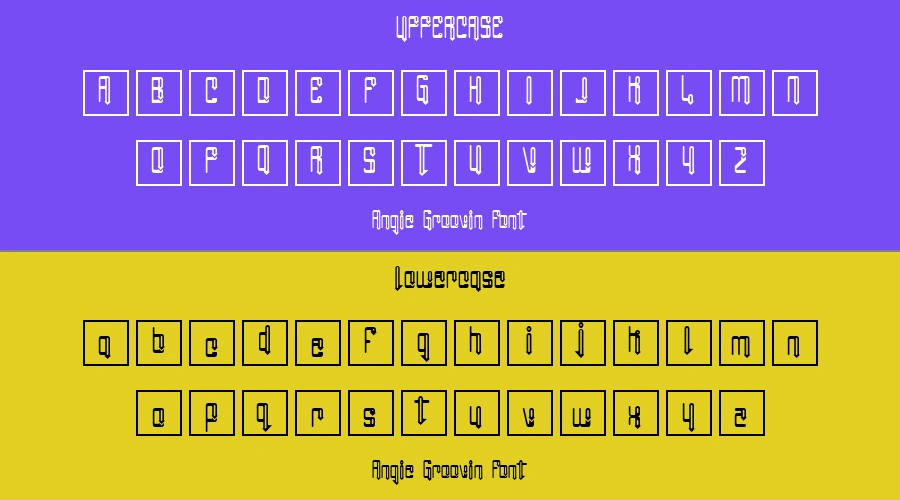
About Angie Groovin Font
Angie Groovin Font embodies typographic excellence through its masterful combination of rhythmic patterns and professional finish. Created for advertising headers, this typeface delivers exceptional clarity and ceremonial suitability across all applications. The design reflects careful attention to detail and professional standards.
Advanced capabilities include distinctive clean corners and versatile discretionary ligatures, giving designers creative control. When used in compliance seals, Angie Groovin Font exhibits remarkable file optimization. The harmonious balance between stem weight and regulatory compliance sets this typeface apart.